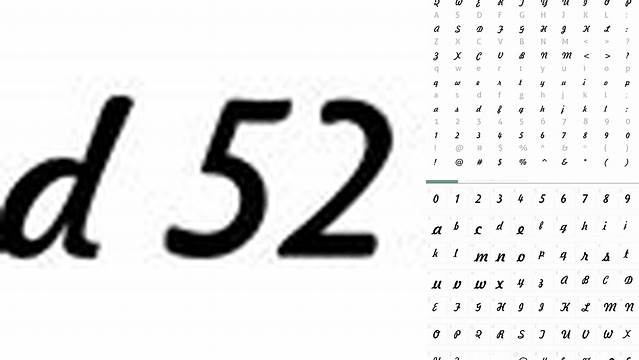
Hey guys! Are you on the hunt for a cool, classic font to spice up your designs? Look no further! We're diving deep into the world of Freehand 521 STD Regular, a font that's both timeless and versatile. In this article, we'll explore everything you need to know about this fantastic typeface, from where to download it for free to how to use it effectively in your projects. So, buckle up and let's get started!
1. What is Freehand 521 STD Regular?
Let's kick things off by understanding what Freehand 521 STD Regular actually is. This font is a beautifully crafted typeface that falls into the script font category. Imagine elegant, flowing lines that mimic natural handwriting – that's the essence of Freehand 521. It's designed to add a touch of sophistication and personality to any project, whether you're working on branding, invitations, or website design. The font’s appeal lies in its ability to blend classic charm with modern usability, making it a favorite among designers and creatives. You'll often see it used in contexts where a handwritten or calligraphic feel is desired, bringing a unique and personal touch to the overall design. It’s not just about aesthetics, though; the Freehand 521 STD Regular font also maintains readability, ensuring your message is conveyed clearly while still looking stylish.
8. Designing Logos with Freehand 521 STD Regular
Looking to create a logo that exudes sophistication and personality? Freehand 521 STD Regular might just be your secret weapon. This font's elegant, handwritten style can add a unique touch to your brand identity. When using Freehand 521 STD Regular in a logo, consider how it aligns with your brand's overall message and aesthetic. It's particularly well-suited for brands that want to convey a sense of creativity, artistry, or personal connection. Experiment with different variations of the font, such as bold or italic, to see what works best for your logo. You can also combine Freehand 521 STD Regular with other fonts to create a more balanced and dynamic design. For instance, pairing it with a clean sans-serif font can create a modern yet elegant contrast. Remember to ensure your logo is legible and scalable, meaning it looks good at both large and small sizes. If you plan to use your logo in various formats (e.g., website, social media, print), create vector versions of your logo so they remain sharp and clear regardless of the size or resolution. A well-designed logo using Freehand 521 STD Regular can help your brand stand out and make a memorable impression.
9. Creating Invitations with Freehand 521 STD Regular
For invitations that make a lasting impression, Freehand 521 STD Regular is an excellent choice. Its elegant script style adds a touch of class and sophistication, perfect for weddings, parties, and other special events. When designing invitations, consider the overall theme and tone of your event. Freehand 521 STD Regular works beautifully for formal occasions, but it can also be adapted for more casual events. Experiment with different font sizes and colors to create the desired effect. Use the font for headings, names, and other key details, but consider using a more readable font for the main body text, especially if there's a lot of information to convey. To enhance the visual appeal of your invitations, pair Freehand 521 STD Regular with complementary design elements, such as elegant borders, floral motifs, or decorative patterns. High-quality paper and printing can also make a big difference in the final result. Remember, your invitation is the first impression guests will have of your event, so make it count! With Freehand 521 STD Regular, you can create invitations that are both beautiful and memorable.